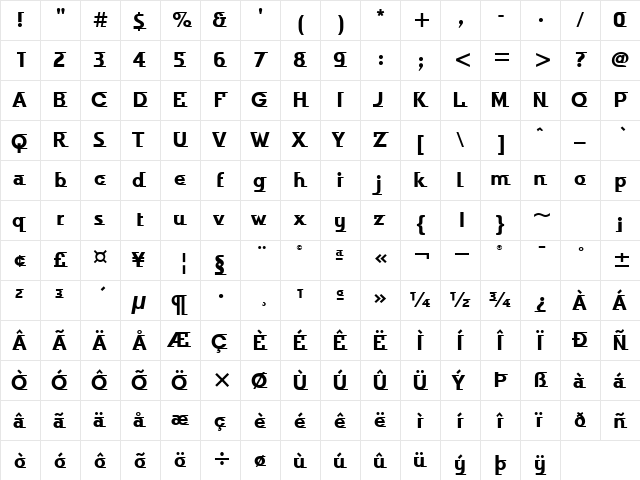
Odyssee ITC TT Bold
Design Context for Odyssee ITC TT Typeface
Odyssee ITC TT offers clean, dependable letterforms without strong stylistic allegiance, making it a practical choice for designers who need flexibility. Its bold stroke weight gives it real presence on the page.